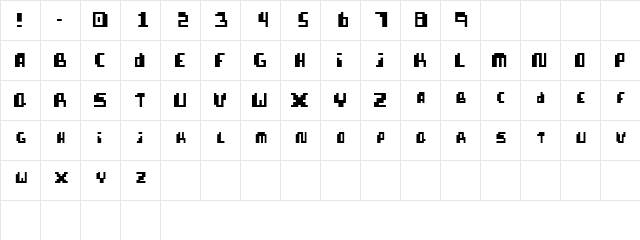
pixellife small cap
Design Context for pixellife Typeface
pixellife is rooted in pixel-grid construction, making it a natural fit for game UI, retro computing aesthetics, and digital nostalgia projects.
Well-suited to indie game interfaces, retro computing aesthetics, and pixel art-adjacent design work.
Pro Tip: Use pixellife at sizes that align with its pixel grid for the sharpest rendering — scaling to non-integer multiples can introduce unwanted blur.